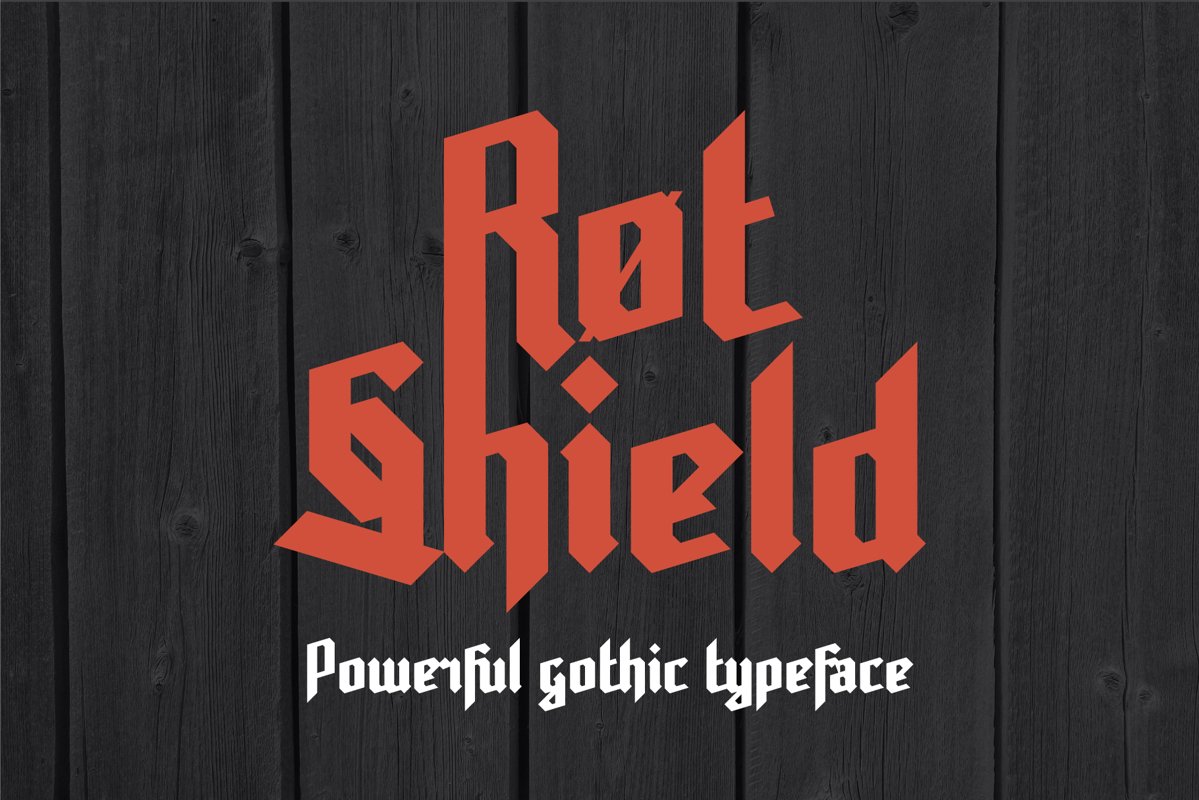
Rot Shield
Hello, Friends! Introducing new gothic typeface - Rot Shield. It is a powerfull typeface with fresh breath of gothic culture. Font looks amazing as alone words and as full text blocks. It has extended latin characters, numerals and punctuations.Enjoy it on your best projects!For any help regarding this font, please feel free to contact me through my profile page and I’ll be glad to offer support.Thanks for buying!